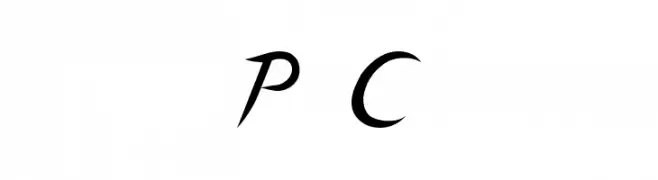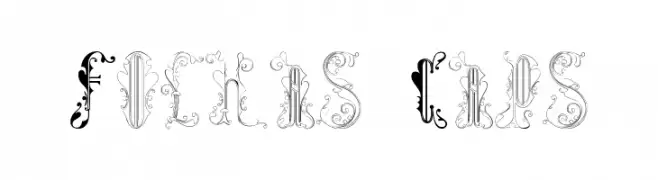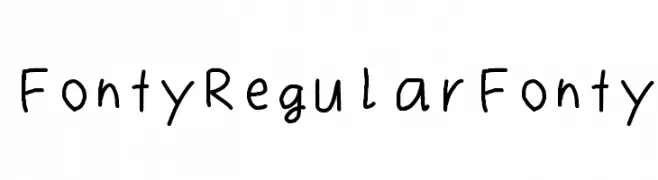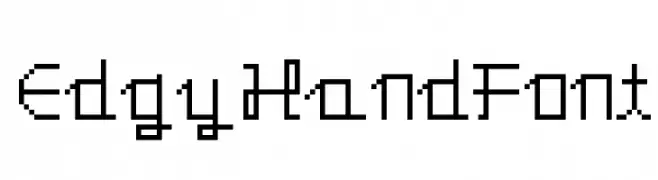
( Ouripedes Gallene )
A dynamic, brush-style font with sharp, angular strokes and a cursive flair.
( Ouripedes Gallene )
A dynamic, brush-style font with medium contrast and a handwritten feel.
( Ouripedes Gallene )
An ornate and decorative font with intricate flourishes, perfect for elegant designs.
( Our House Graphics - ourhousegraphics.com )
A bold, geometric stencil font with sharp angles and solid forms.
( Oromo Digital Arts - oromoliteratures.blogspot.com )
A decorative and modern font with bold, patterned uppercase and clean lowercase letters.
( Orangepaprika67 )
A playful, casual handwritten font with rounded edges and an informal style.
( Orangepaprika67 )
A pixelated, edgy font with a retro digital aesthetic.
( Orangepaprika67 )
A geometric, grid-based font with a digital, pixelated style.
( Open Window )
A dynamic, calligraphy-inspired font with fluid strokes and elegant design.